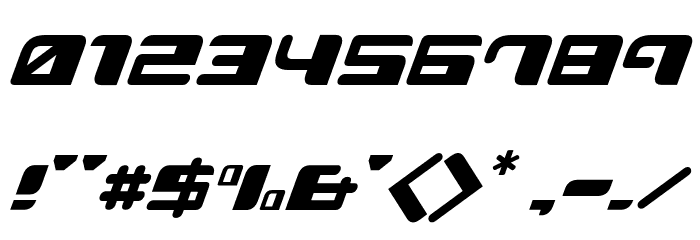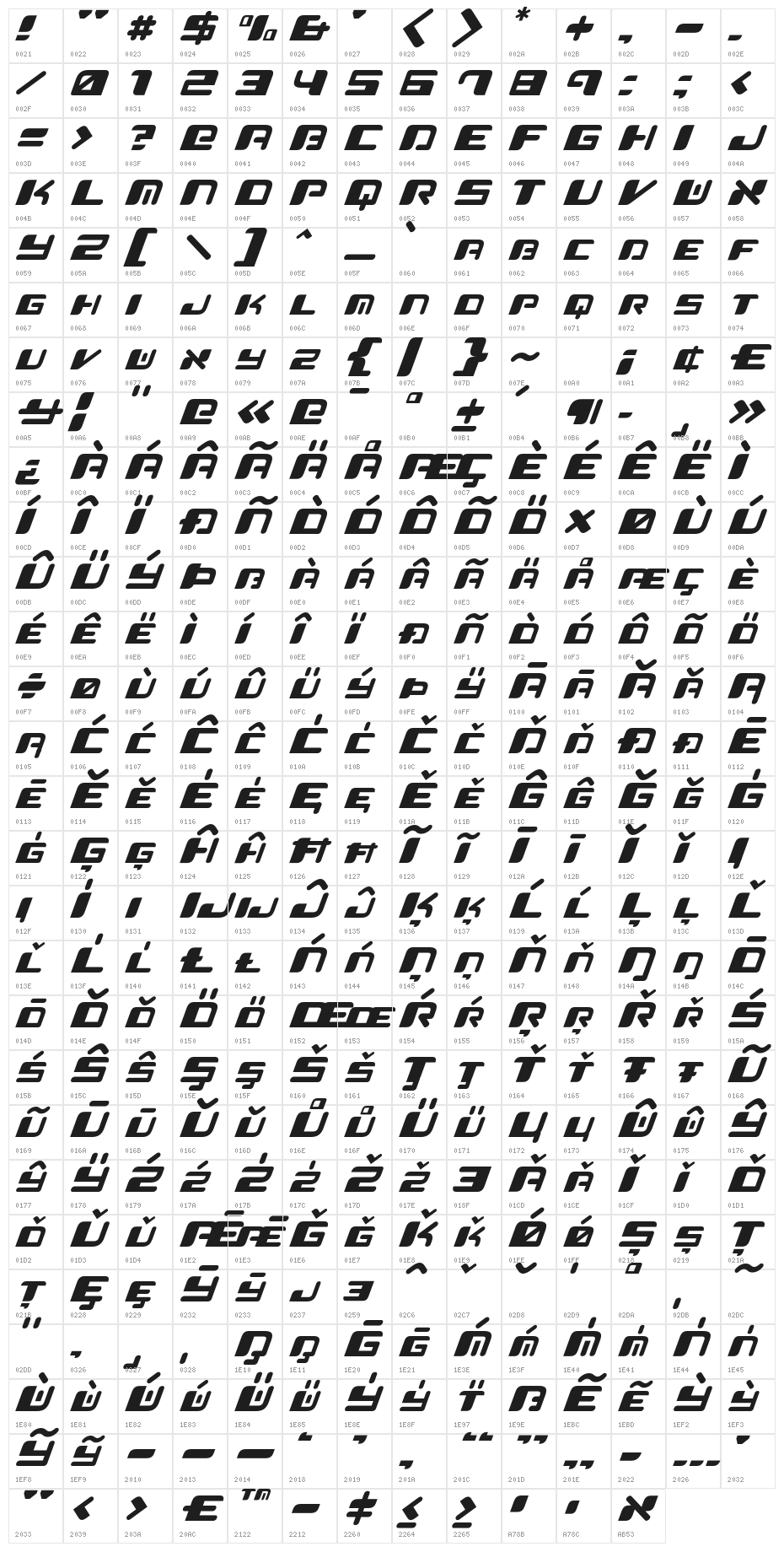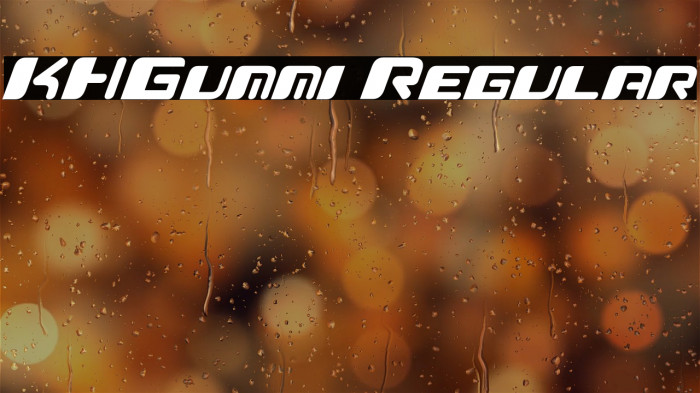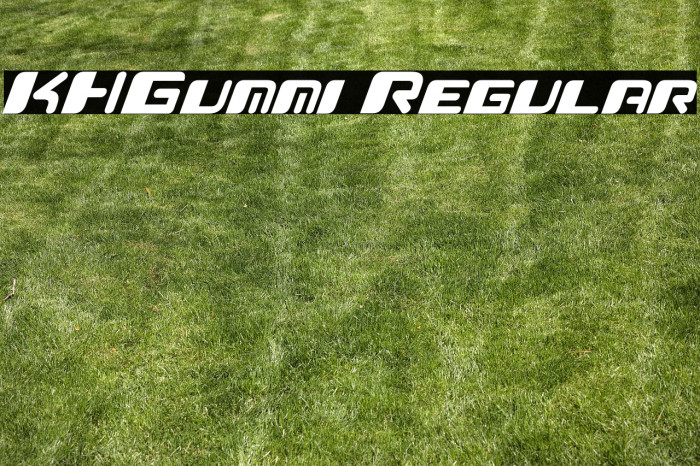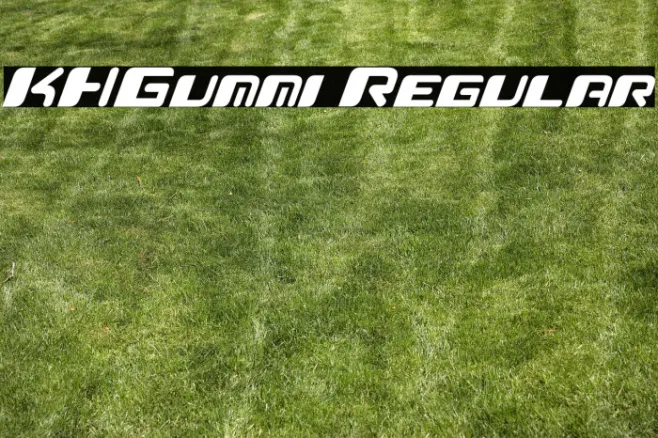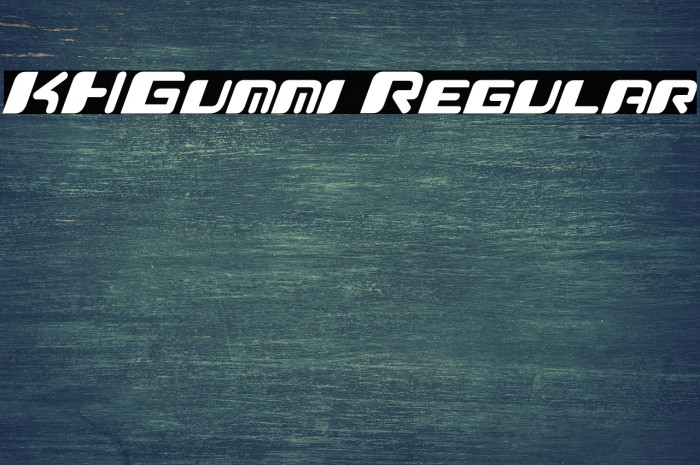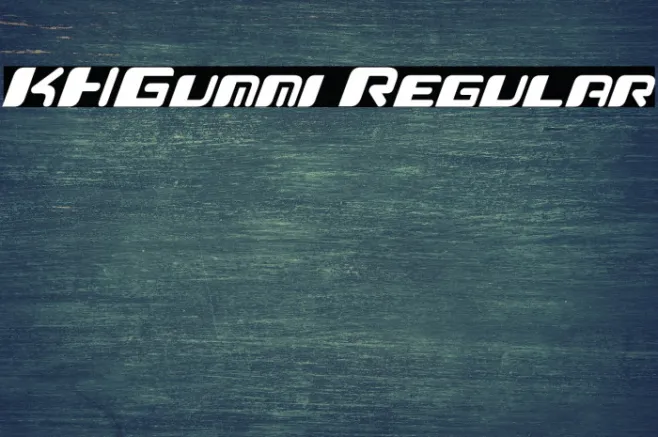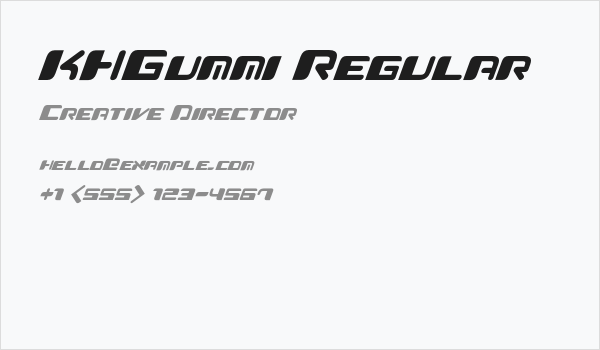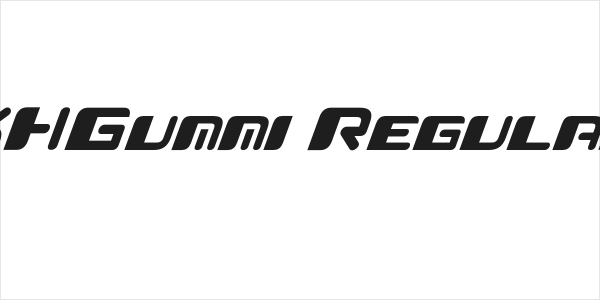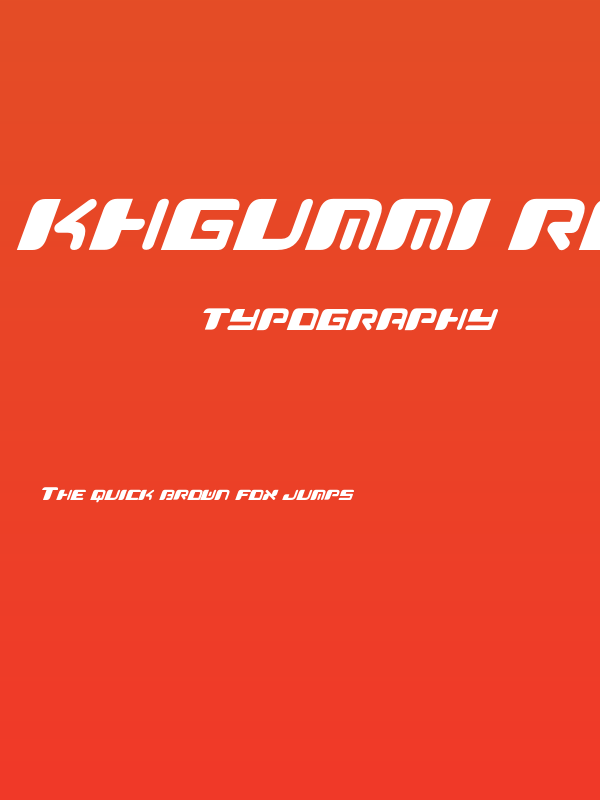
KHGummi Regular Font
KHGummi Regular Description
This font features a bold, futuristic design with a distinct slant, giving it a dynamic and forward-moving appearance. The characters are wide and have a geometric structure, with sharp angles and clean lines that create a sense of speed and modernity. The uppercase and lowercase letters maintain a consistent style, while the numerals and special characters complement the overall aesthetic. The font's unique style makes it suitable for projects that require a modern and edgy look.